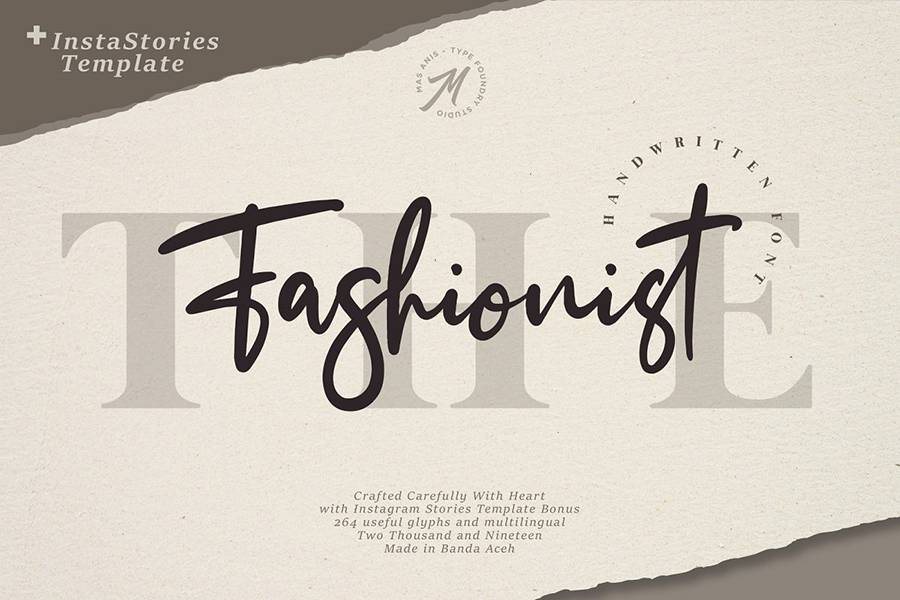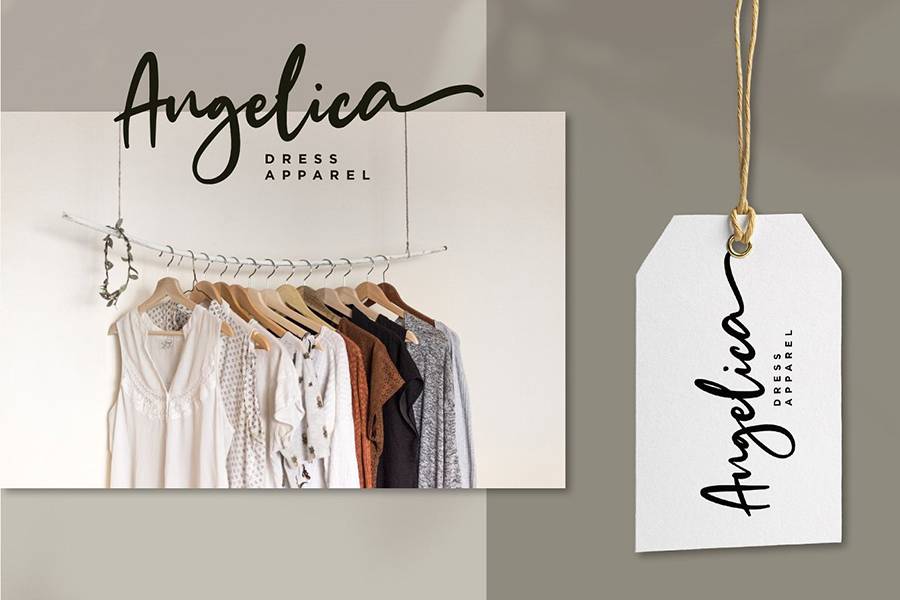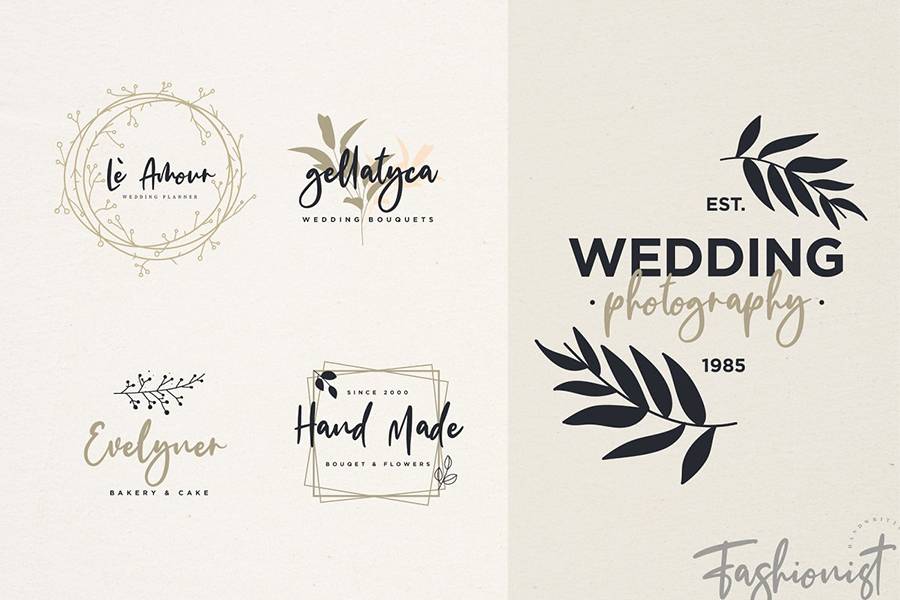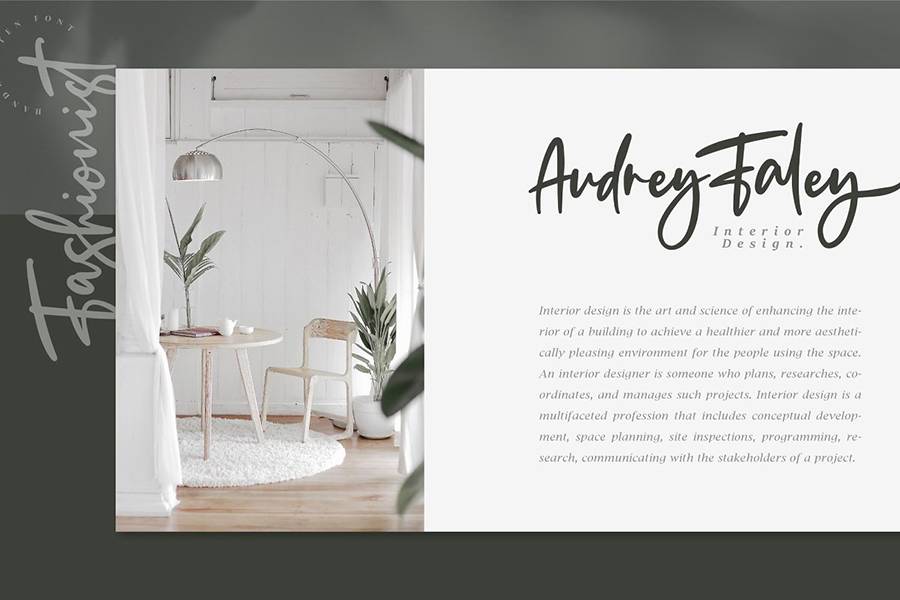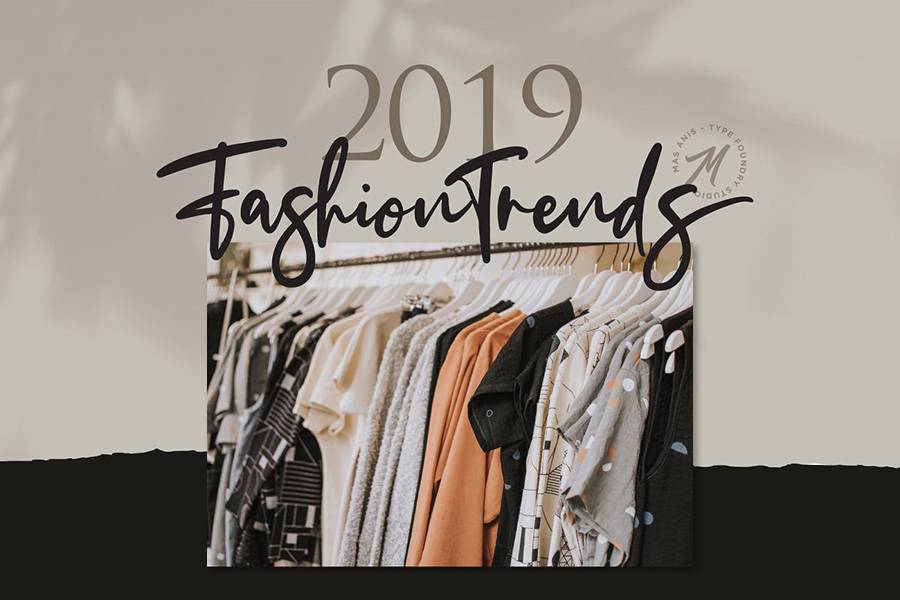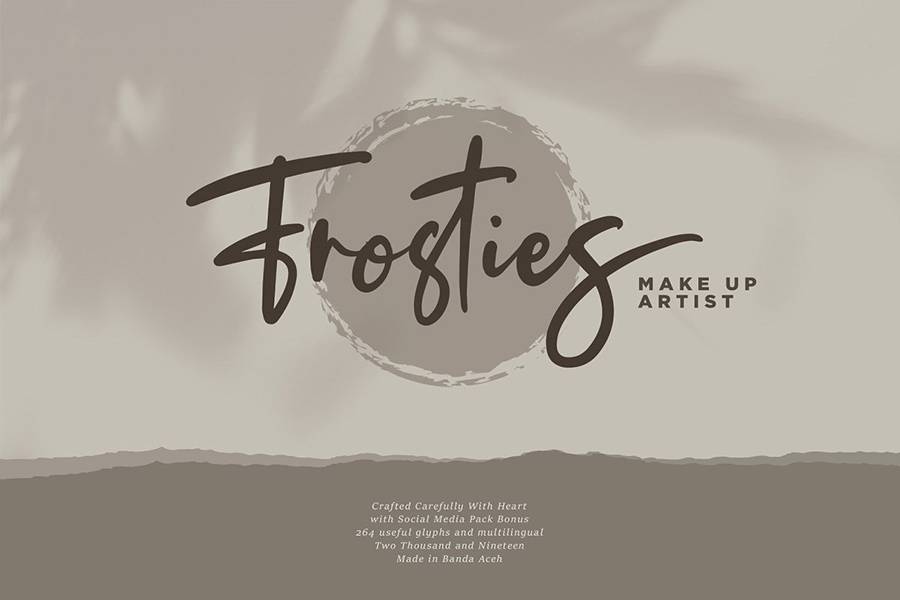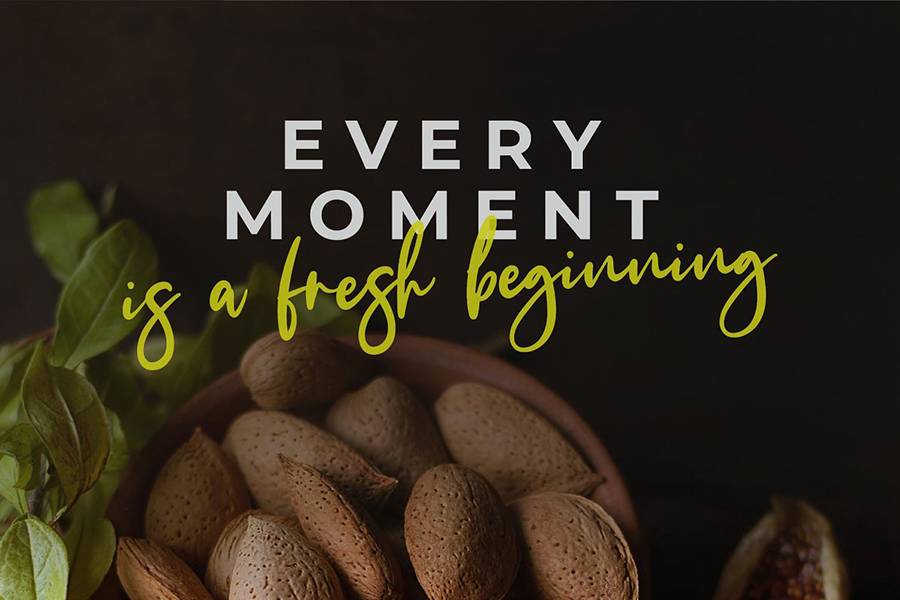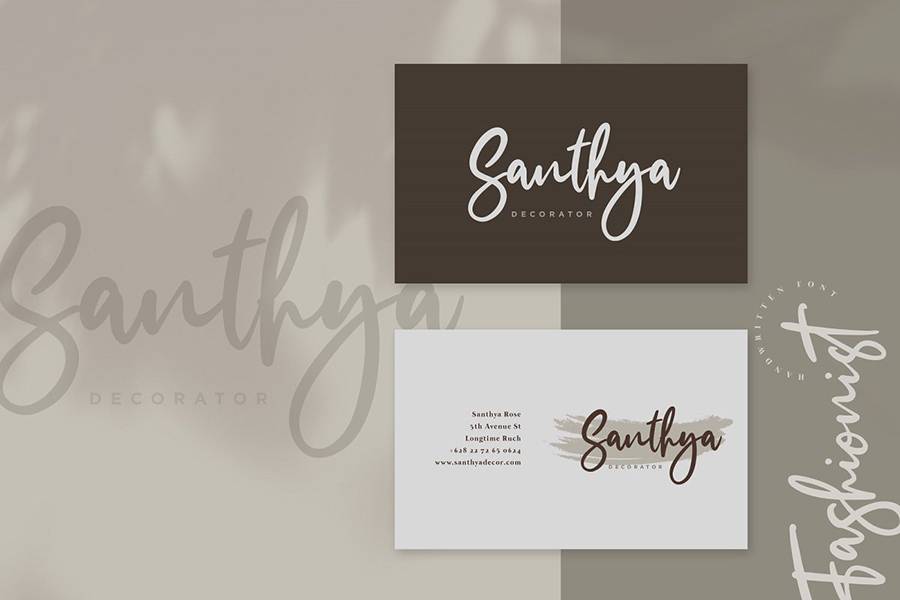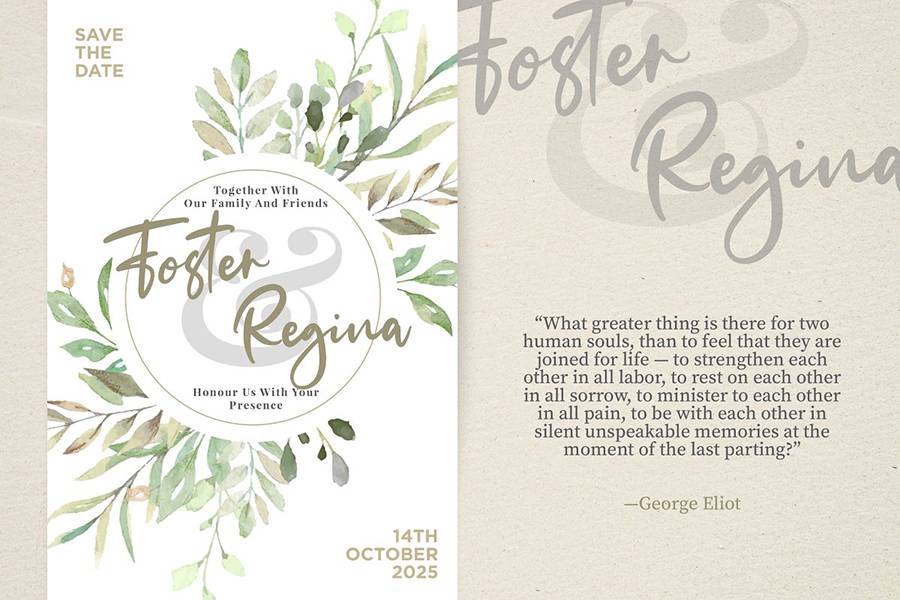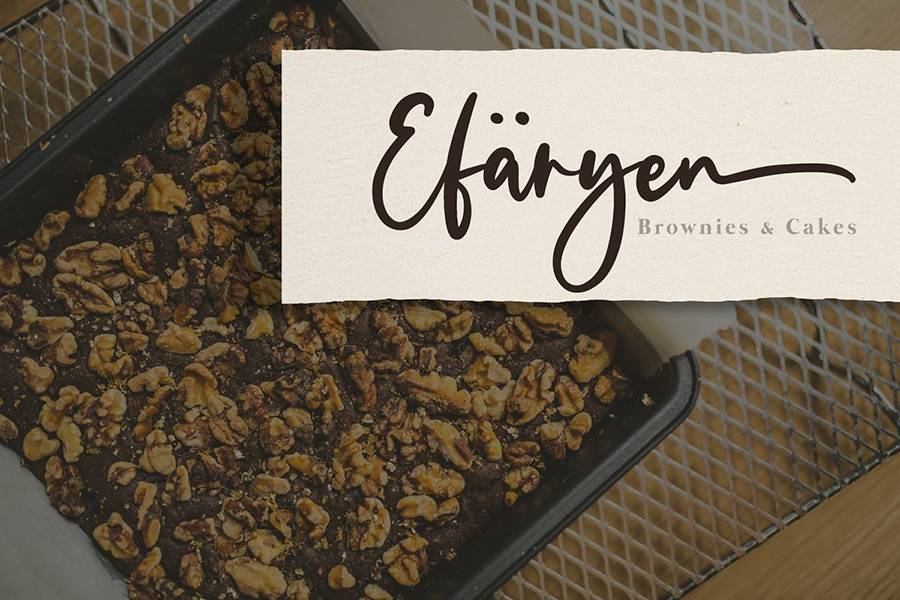
The Fashionist Script is a lively and elegant handwritten font with a modern, casual style that features flowing, connected letterforms and a smooth, natural stroke. Its tall x-height and playful curves make it perfect for fashion-forward branding, social media, and invitations, adding a personal, stylish touch while maintaining readability. This font works beautifully for creative projects that want to convey a sense of individuality and contemporary charm.
The Fashionist Script Font
About The Fashionist Script Font
| Font family | The Fashionist Script Font |